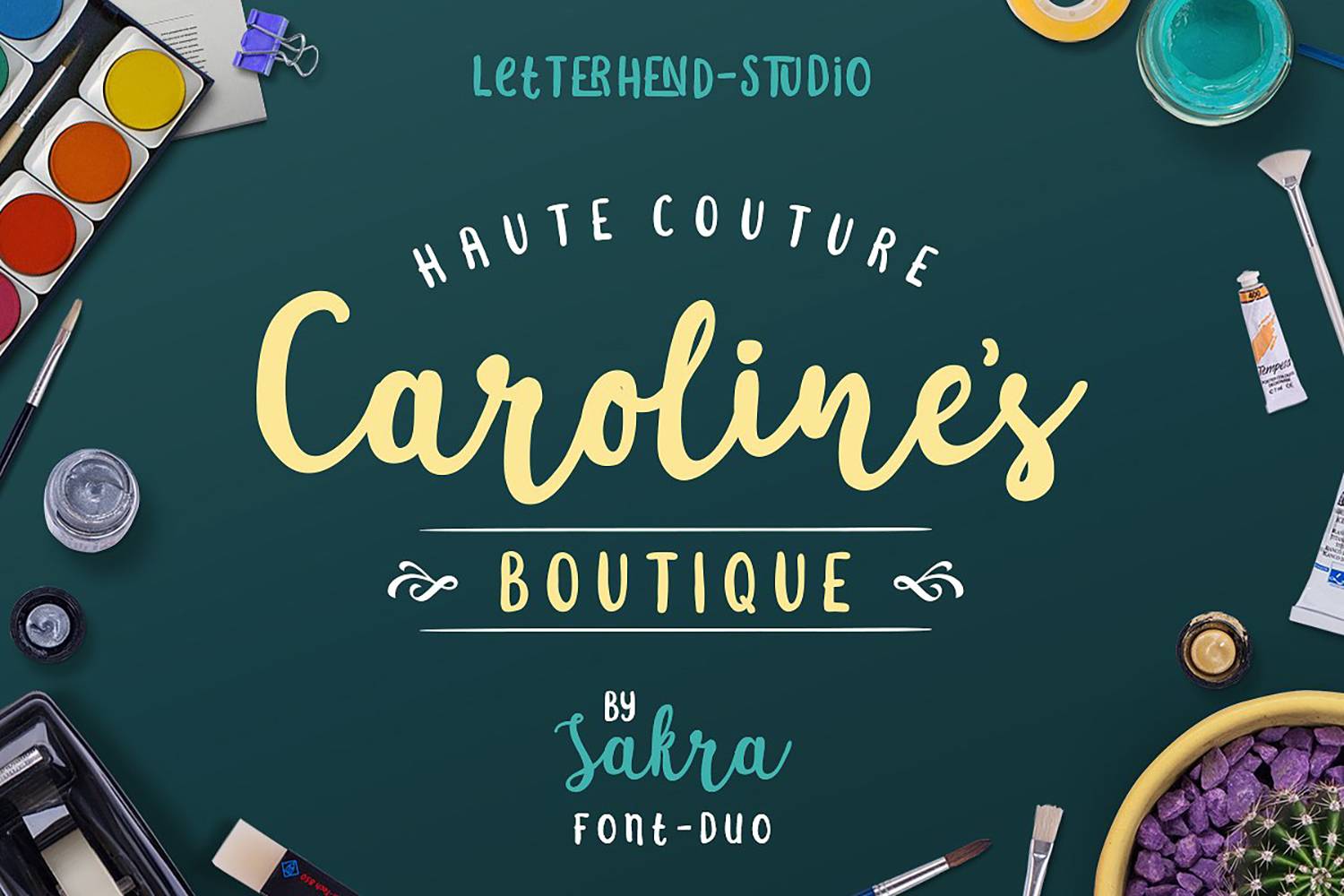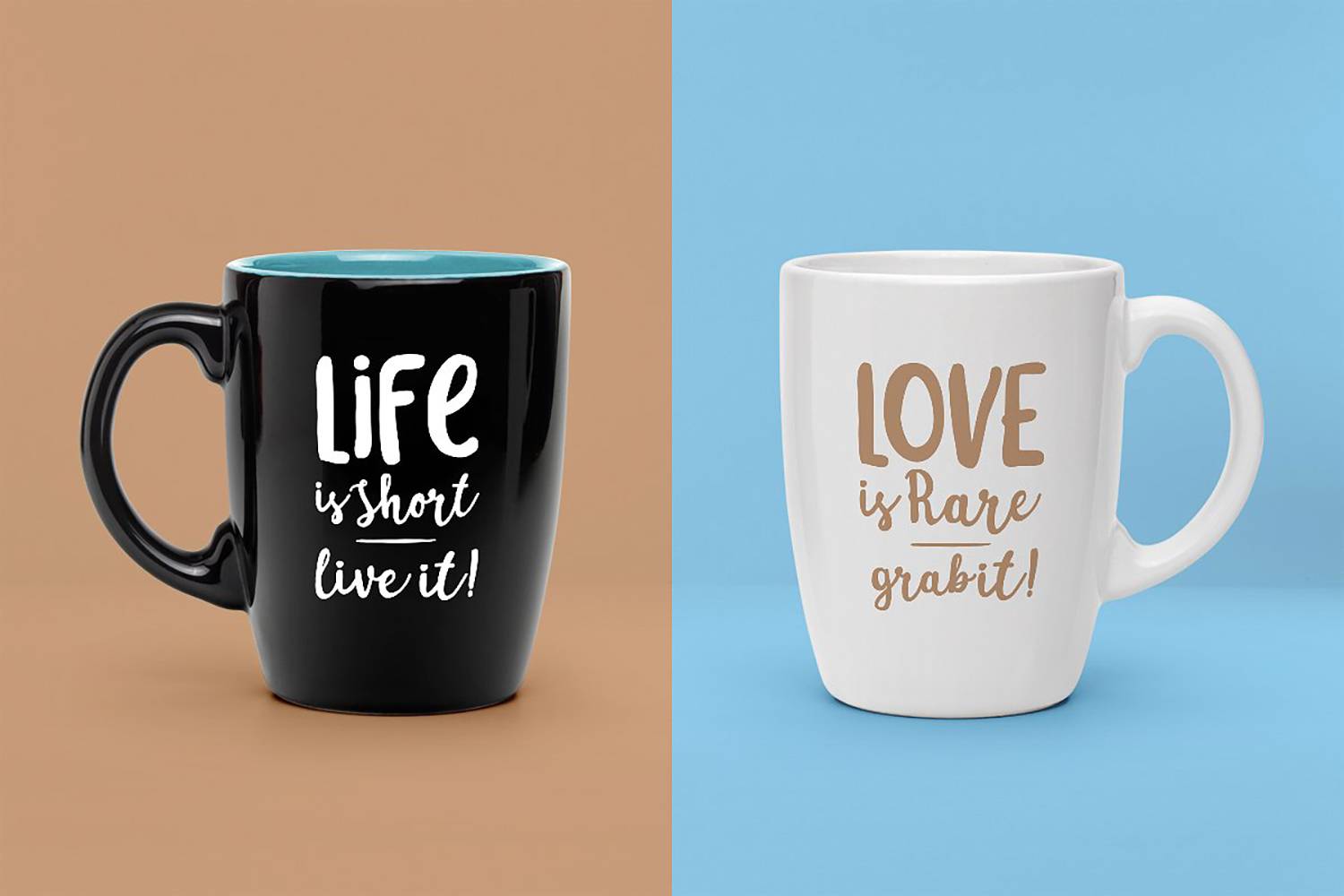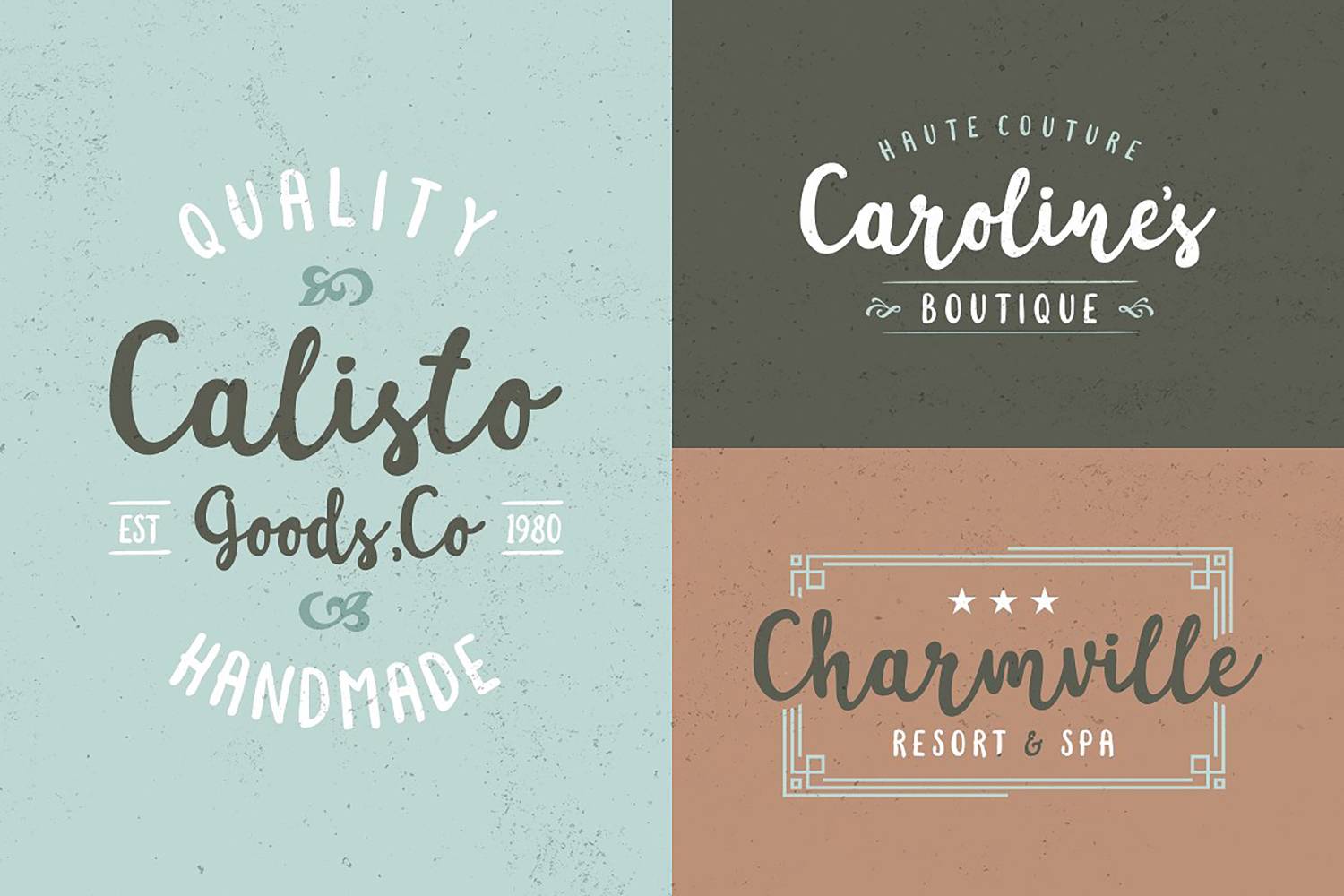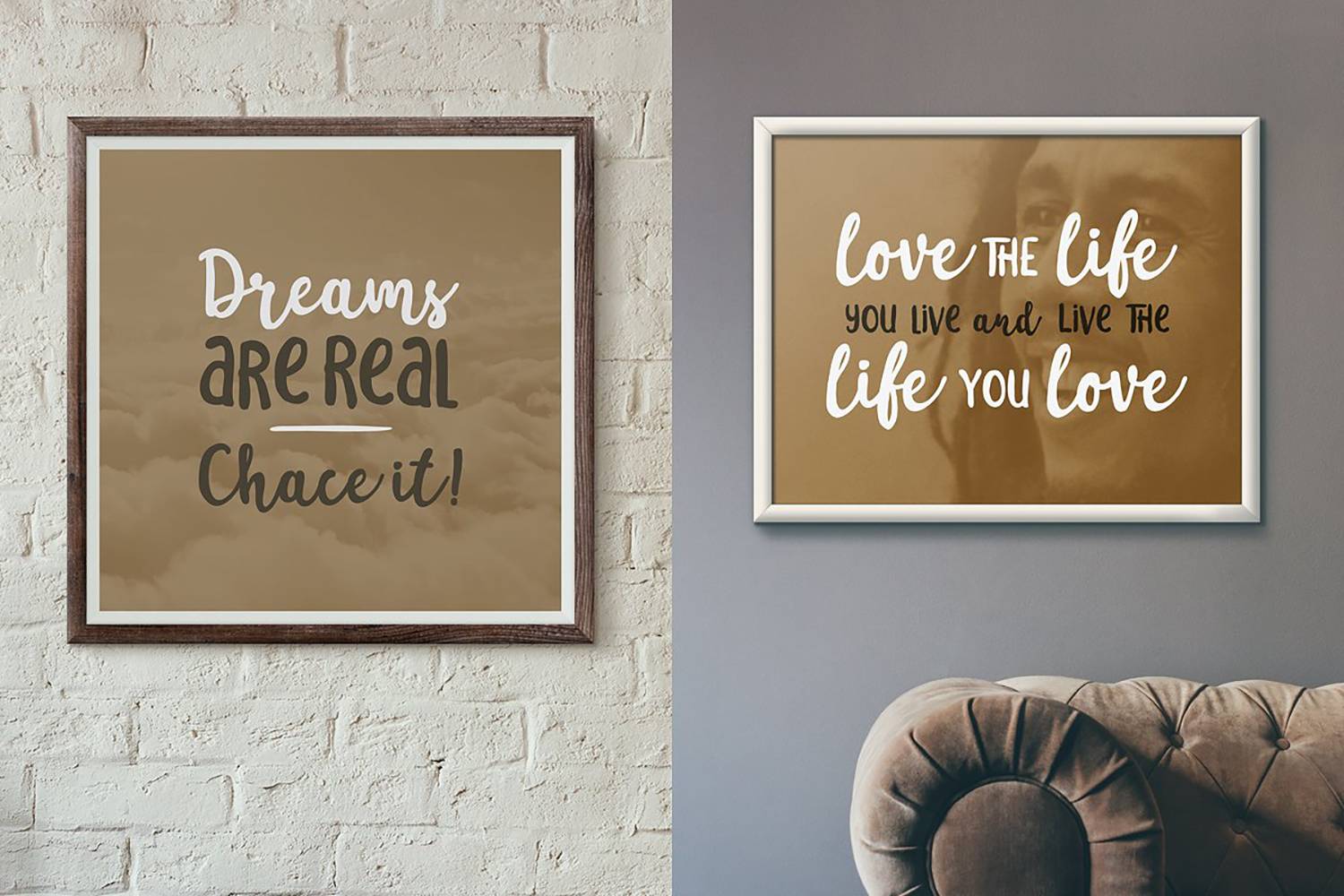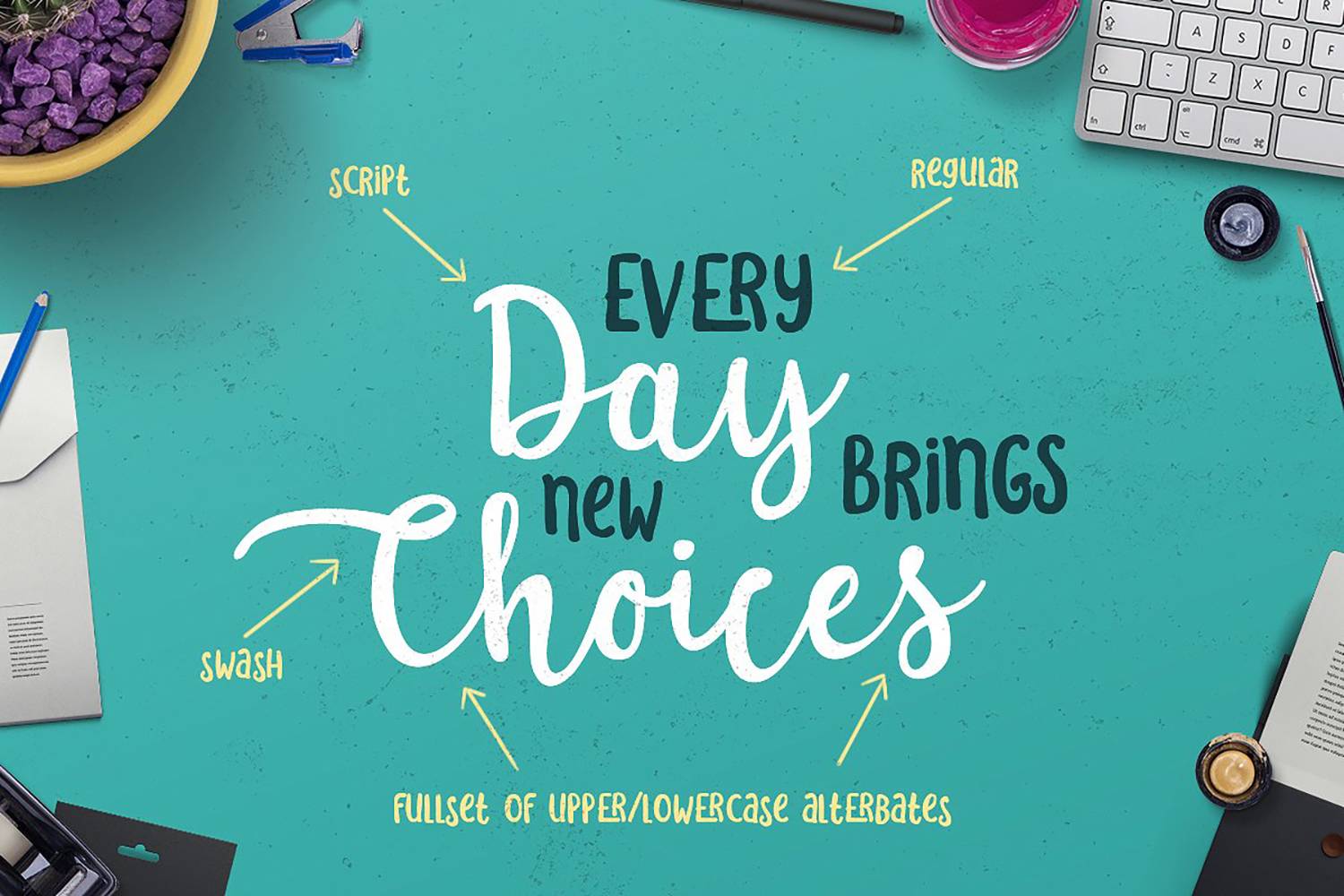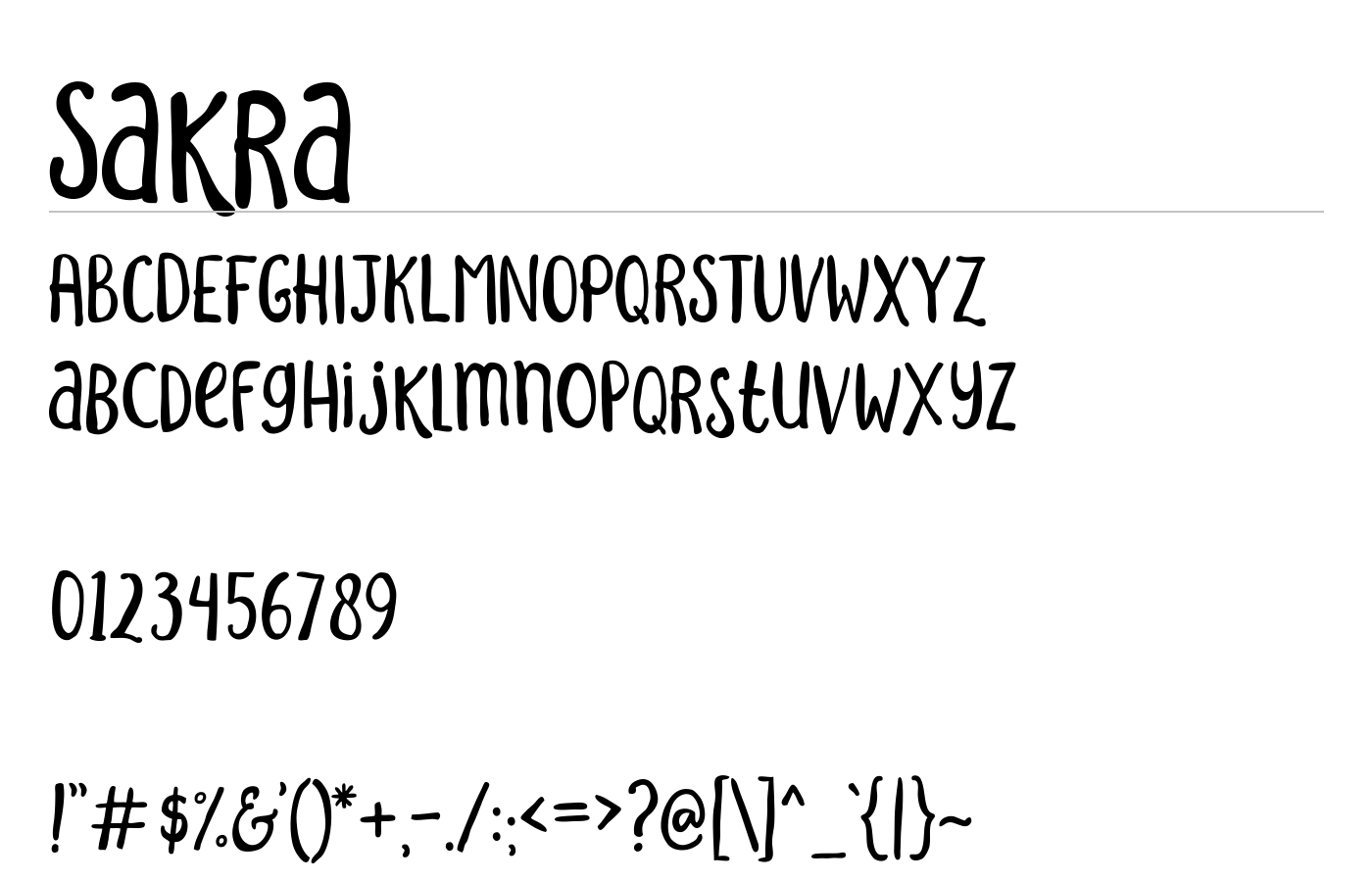
Sakra Font
Sakra Font is a fun font duo with regular and script which is perfectly used for your fun & casual project! Sakra! includes upper & lowercase characters, punctuation, numerals, and multilingual support. It also has many open type alternates and ligatures. This free typeface was designed by a talented Hendry Juanda. If you like it don’t forget to check out the full version.